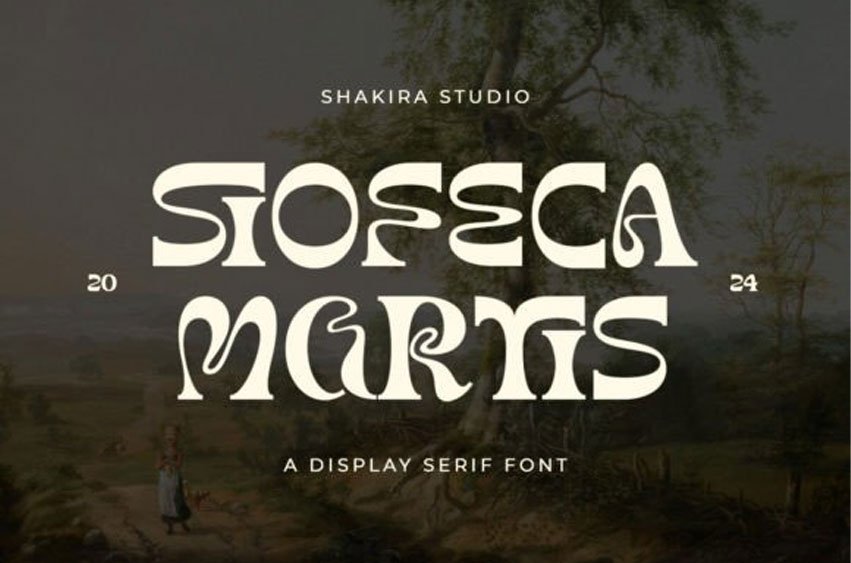
Siofeca Martis Font
Siofeca Martis Font The Psychedelic Serif Display Font that Redefines Typography! Siofeca Martis isn’t your typical serif font; it’s a bold statement of creativity and innovation in the world of typography. With its psychedelic flair and striking display, Siofeca Martis embodies the essence of #SerifFonts and #TypographyTrends.
Crafted for designers seeking to push the boundaries of traditional serif design, Siofeca Martis adds a touch of whimsy and intrigue to any project. Its unique characters and vibrant display make it perfect for logos, posters, album covers, and more.